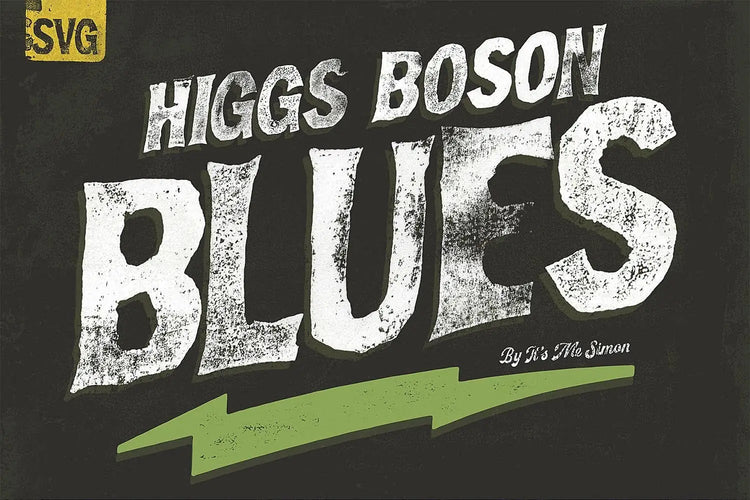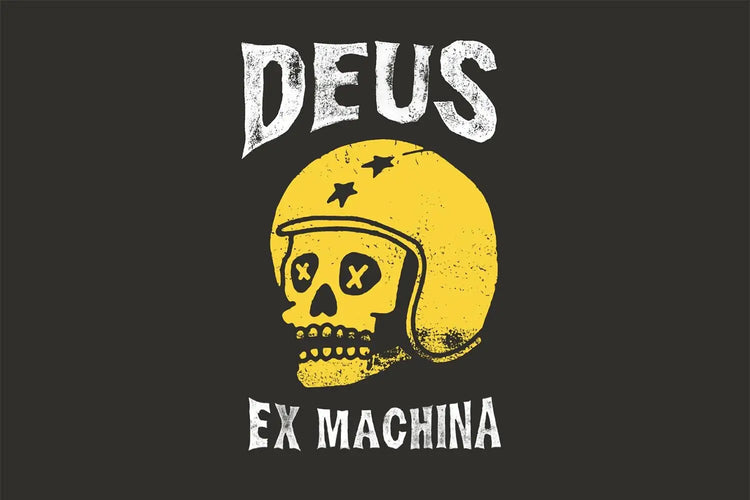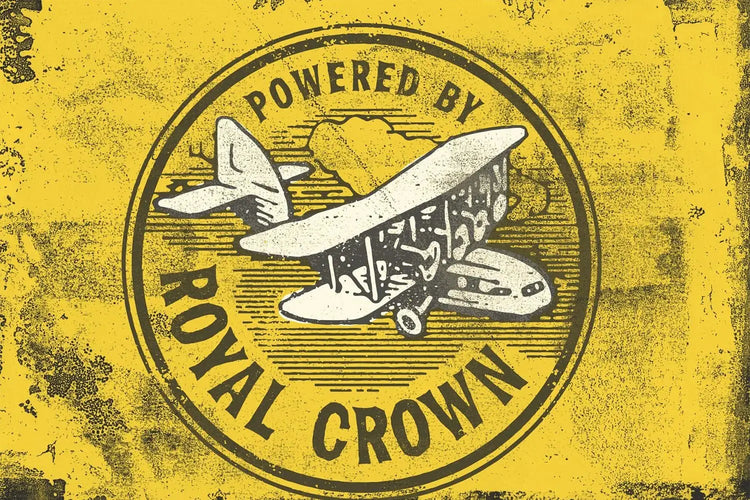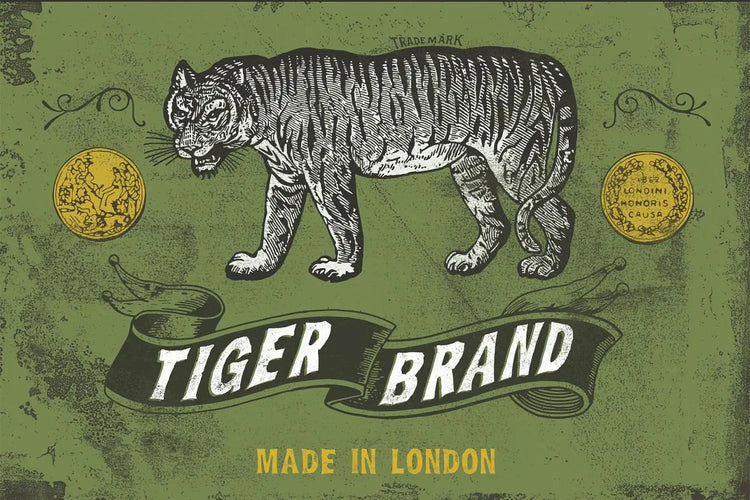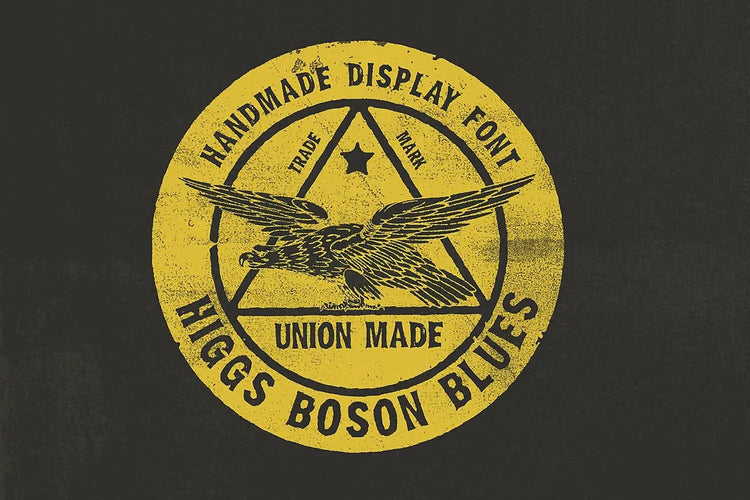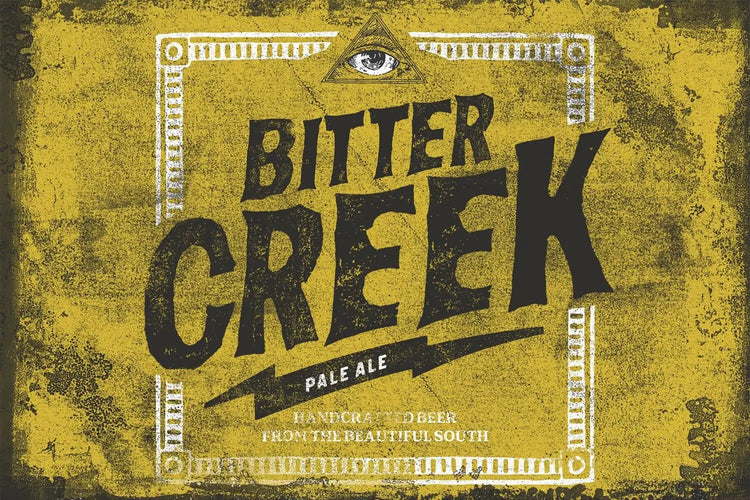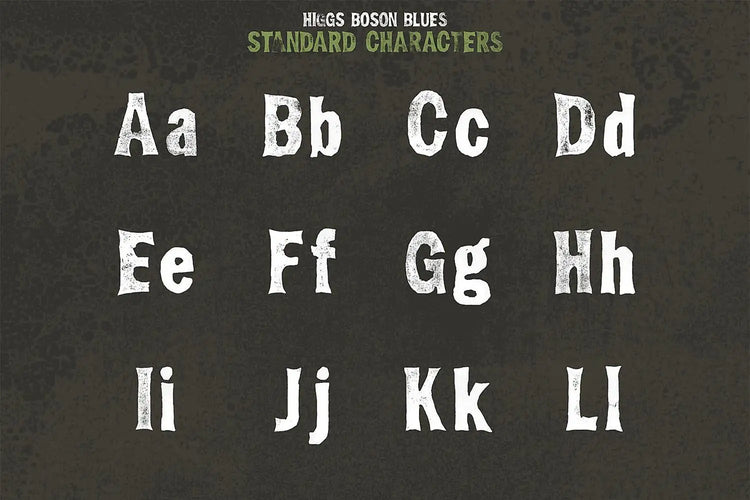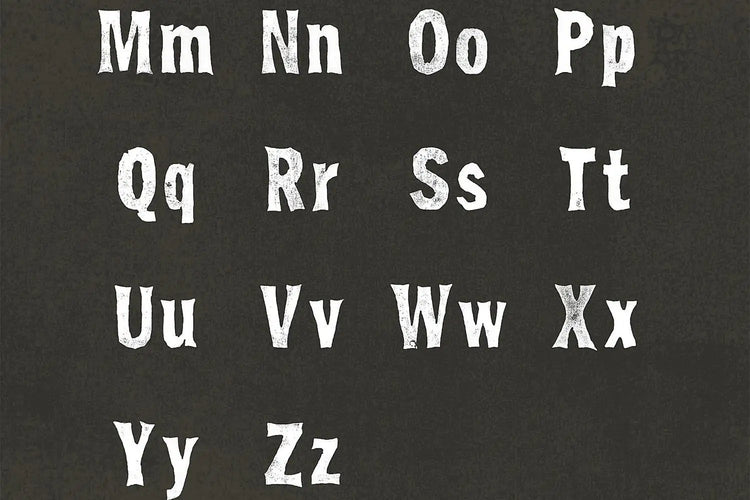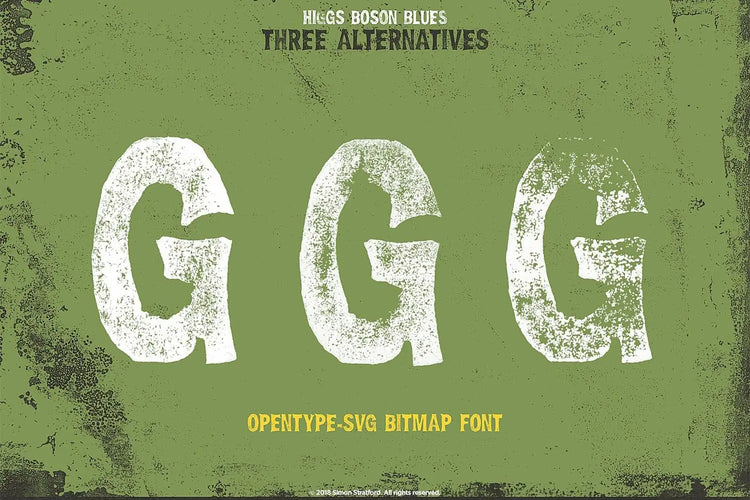
Higgs Boson Blues — Distressed Wood Type Letterpress Font
About Higgs Boson Blues
With Higgs Boson Blues, I painstakingly hand-carved each letter on linoleum and hand-printed multiple copies of every glyph to achieve an authentic woodtype appearance reminiscent of 19th-century American Woodtype.
Now, let's delve into the OpenType-SVG font – it's a game-changer! It's a new cutting-edge format that allows images, colour and transparency.
Its texture and detail are extraordinary, resembling the finest handmade block prints you've ever encountered. It's simply incredible.
Whether you're crafting t-shirts, branding, designing packaging, composing book covers, creating letterheads, or crafting headlines, it exudes the vintage Western charm you've been looking for.
What sets it apart? It's all about the hand-printed genuine detail. This font flaunts genuine grunge texture, not some digitally replicated imitation.
We're talking about real texture, complete with its imperfections. If you're in search of an authentic letterpress font style, Higgs Boson Blues font is the perfect match.
Higgs Boson Blues OpenType Alternatives
Each letter offers three alternative versions, perfect for infusing a touch of randomness into your design work.
If Higgs Boson Blues Font were a celebrity
It would be Nick Cave (I named the font after his song). Just as Nick Cave is renowned for his dark and poetic songwriting, the Higgs Boson Blues font is celebrated for its intricate and handmade design.